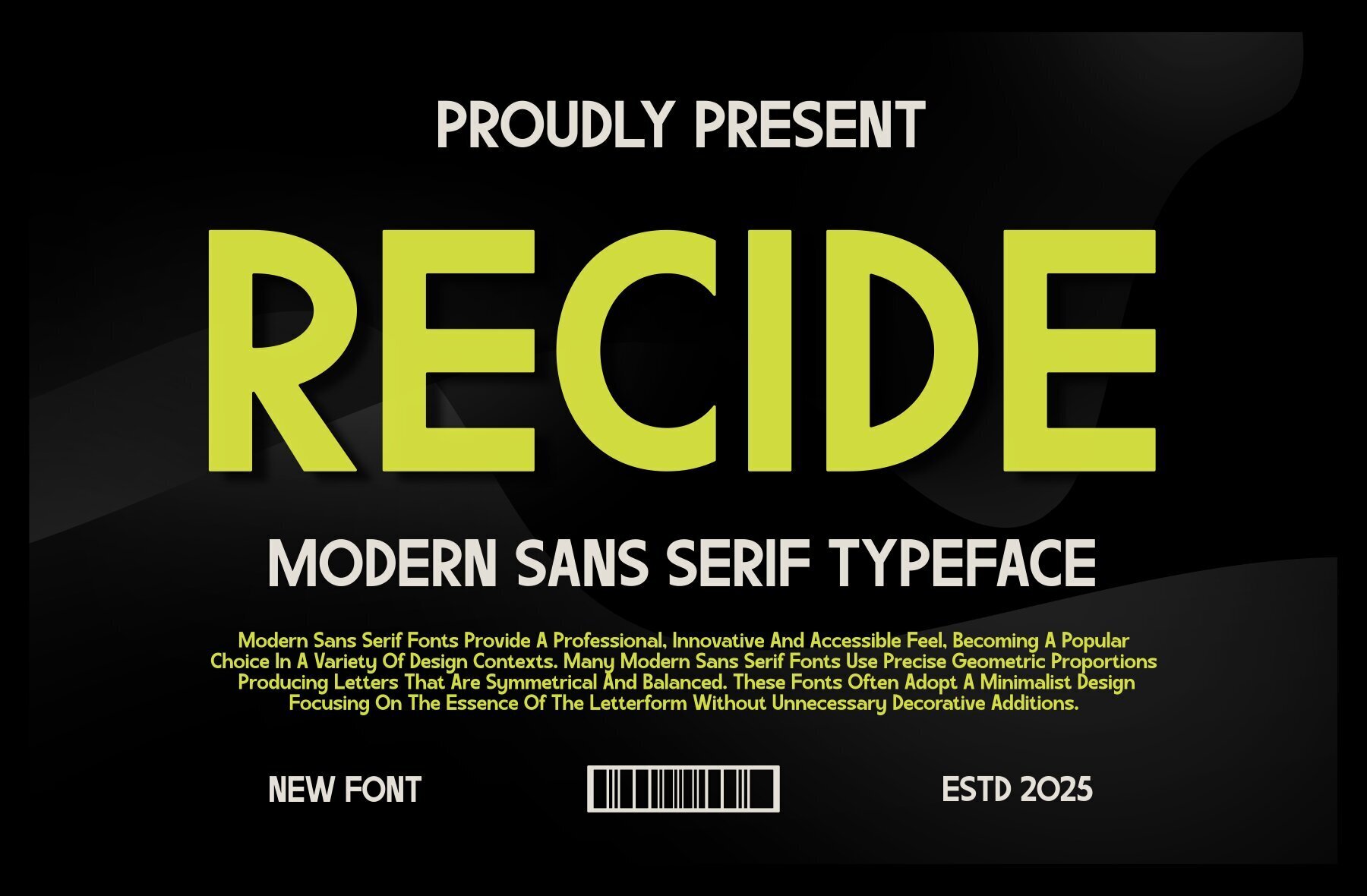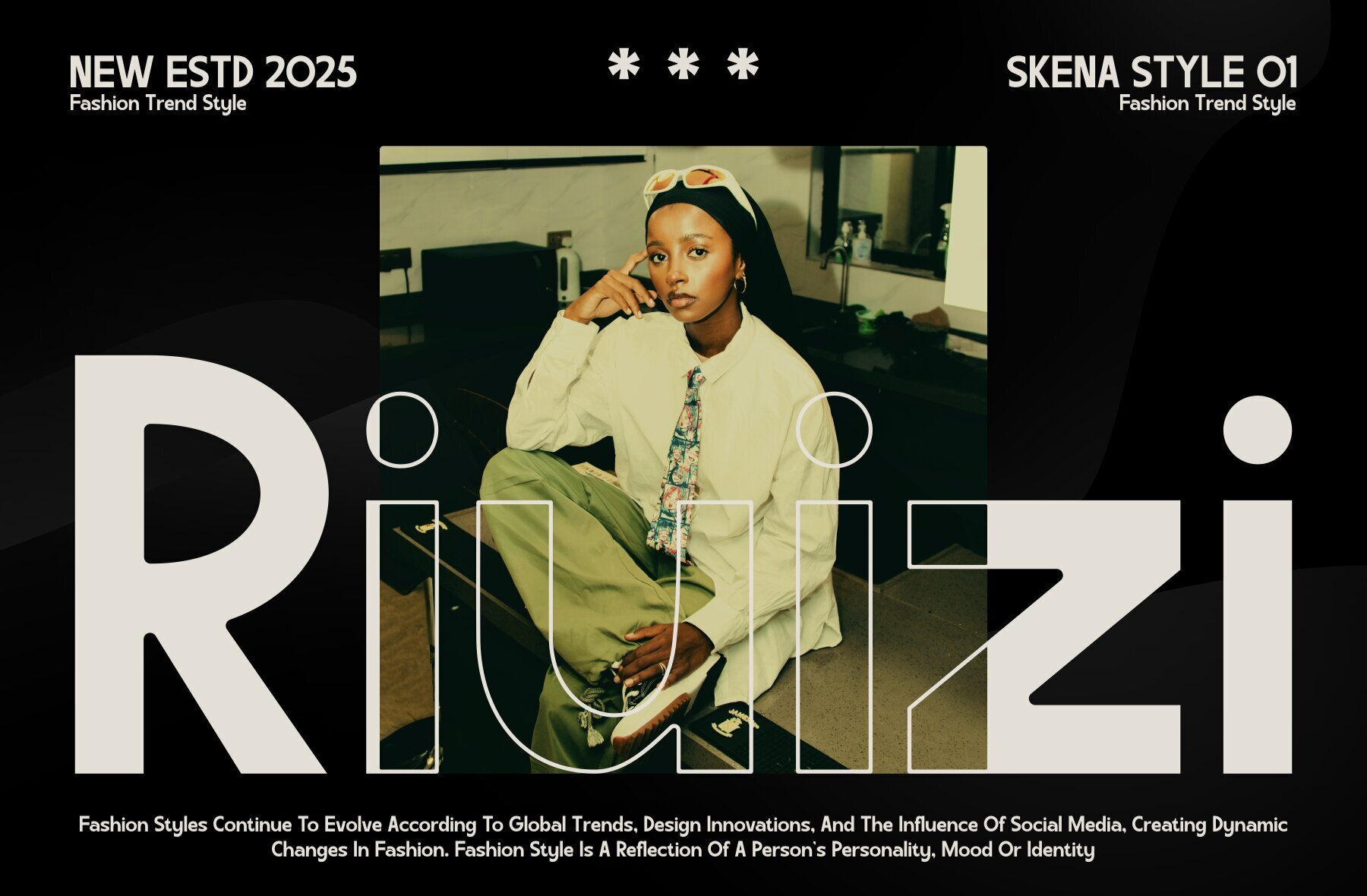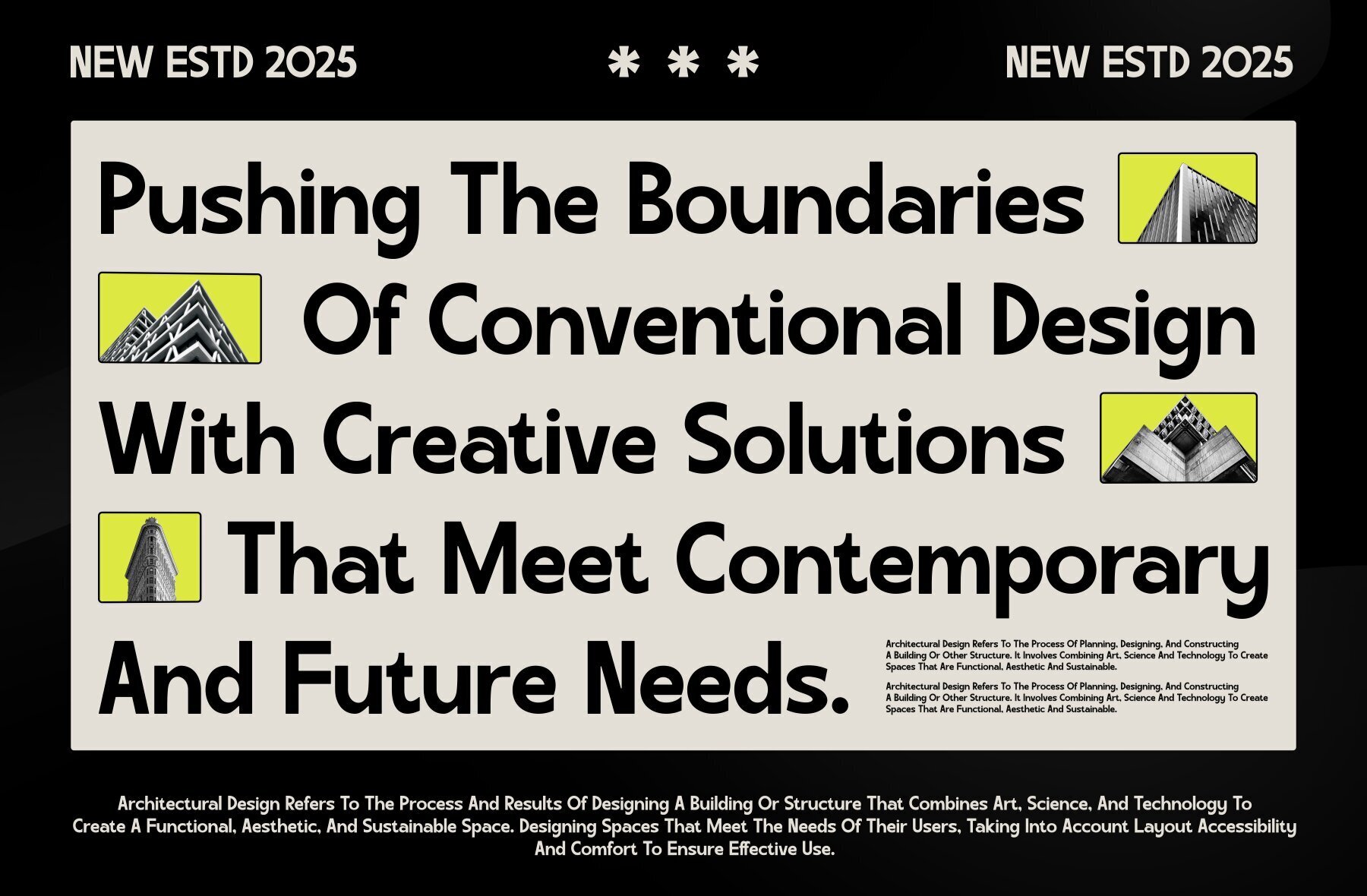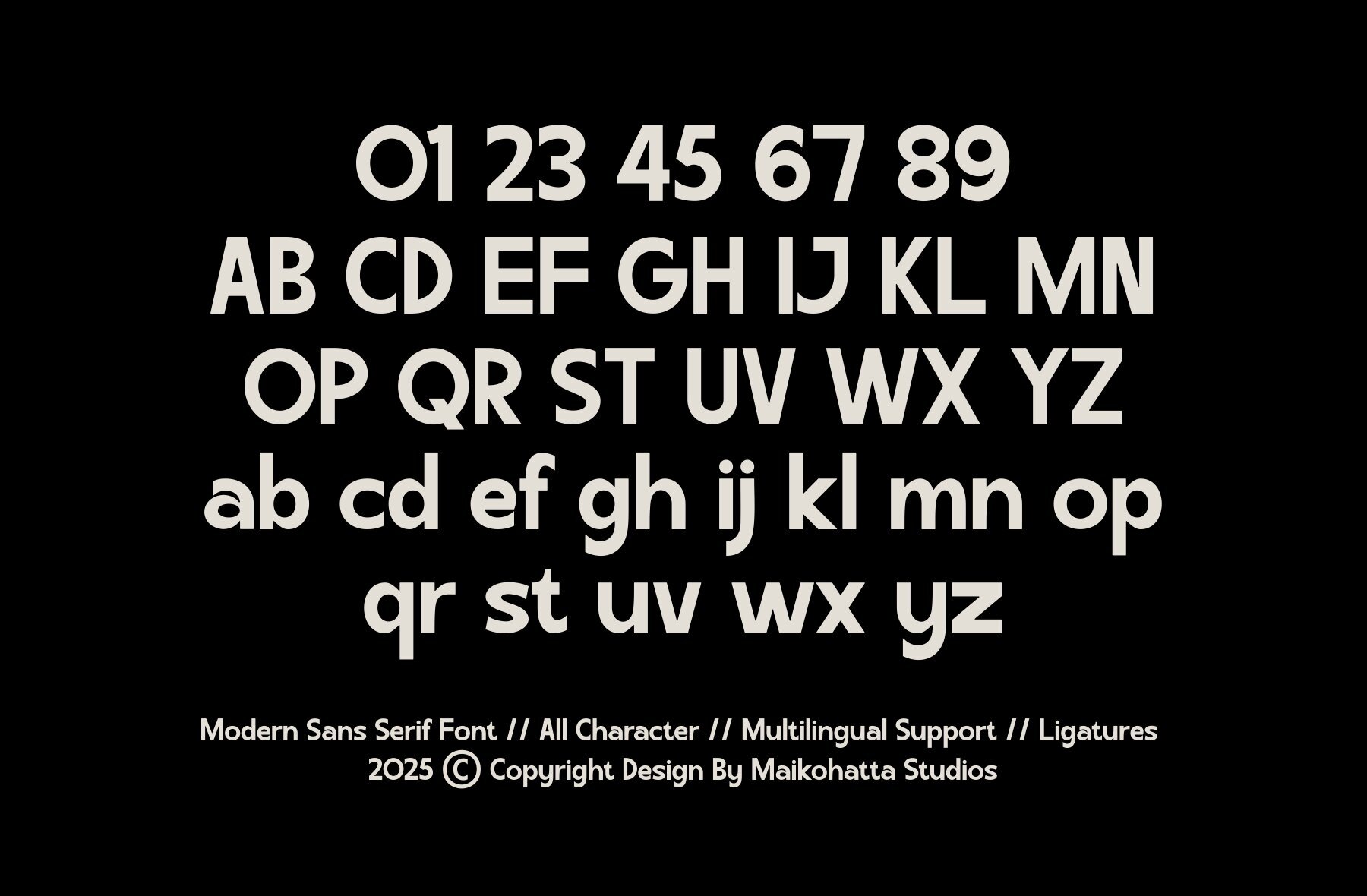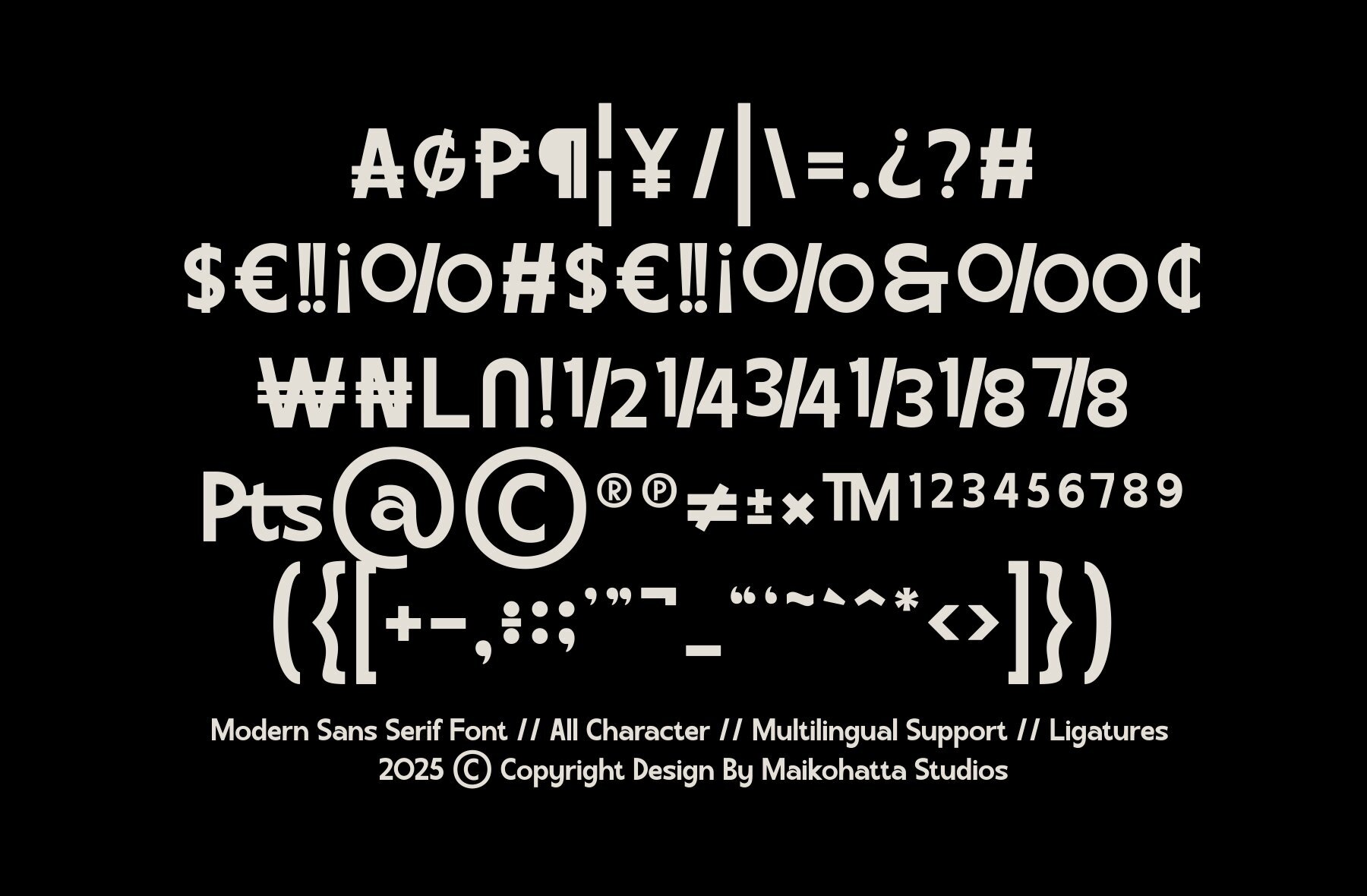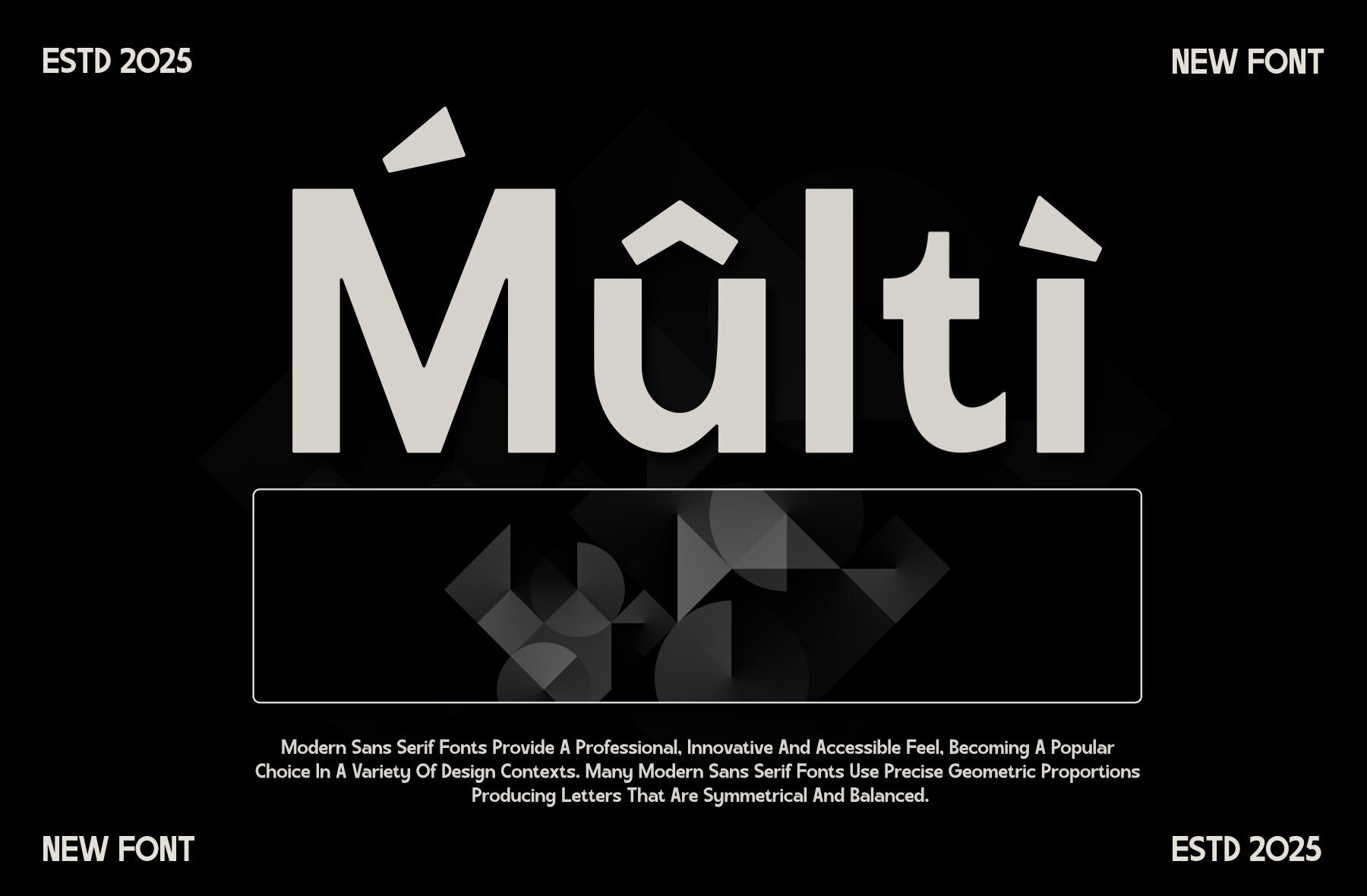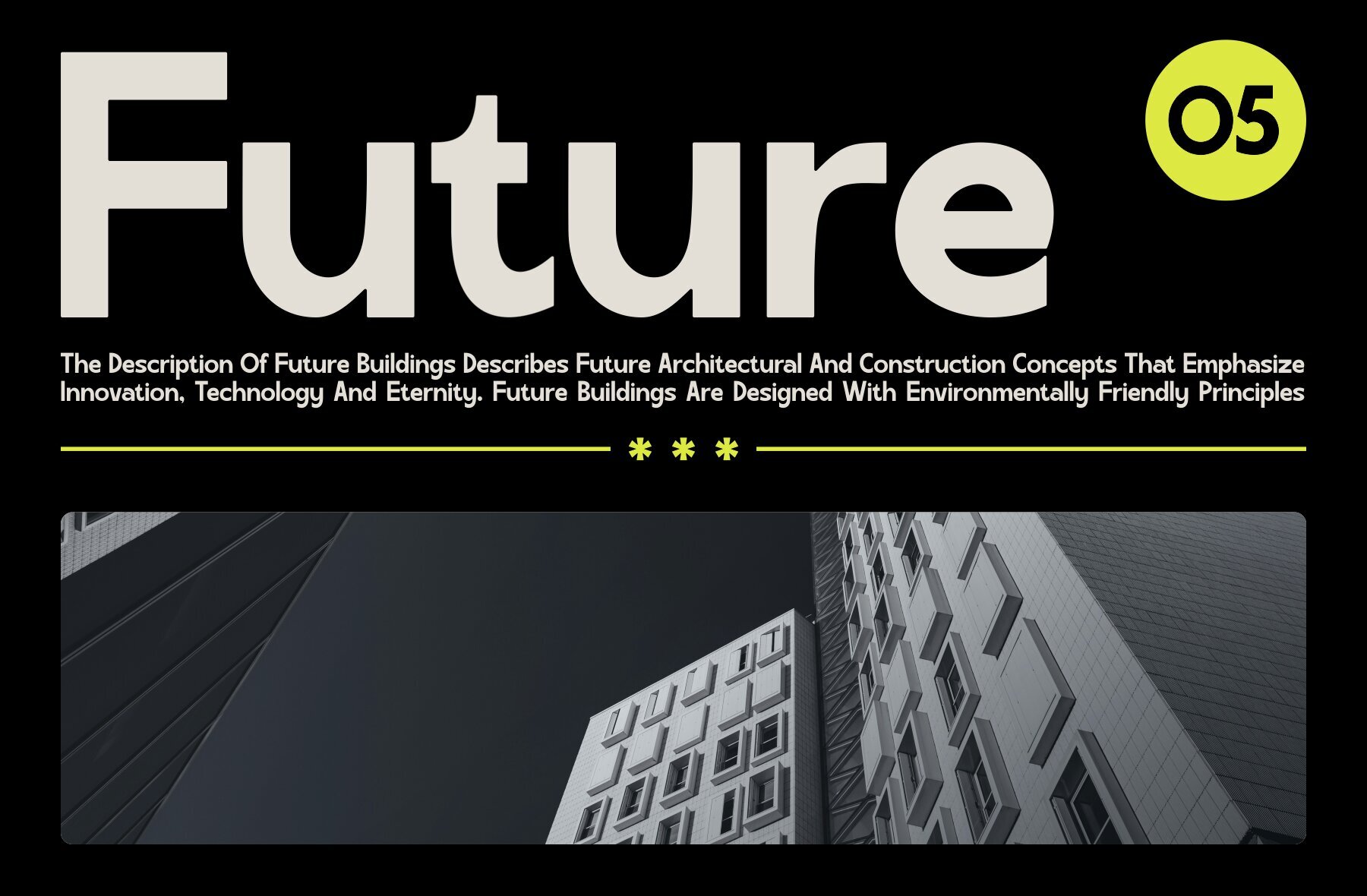
Recide Font
RECIDE
Recide is a modern sans serif typeface that offers a versatile choice for a wide range of design projects. Its clean and professional appearance makes it ideal for contemporary graphic design and typography applications. The simplicity and aesthetic appeal of Recide contribute to its effectiveness in creating visually striking designs.
Featuring a comprehensive set of uppercase and lowercase characters, Recide ensures linguistic flexibility with multilingual support. Notable design elements such as ligatures enhance the font's usability, providing designers with creative freedom to craft unique typographic compositions. Whether for branding, editorial design, or digital interfaces, Recide delivers a sophisticated and modern look.